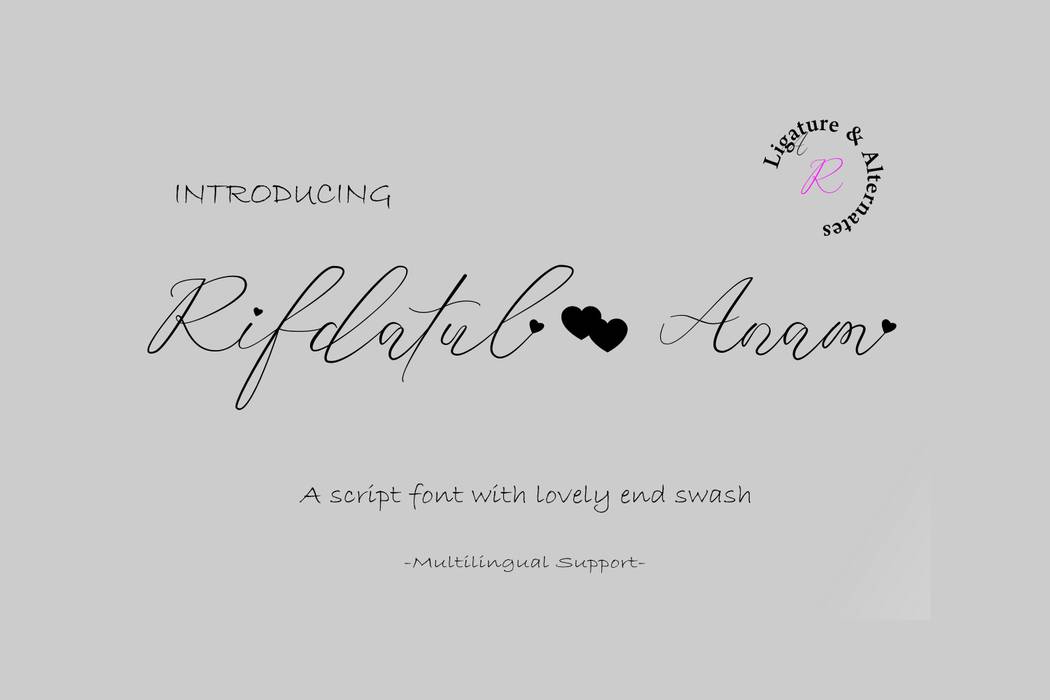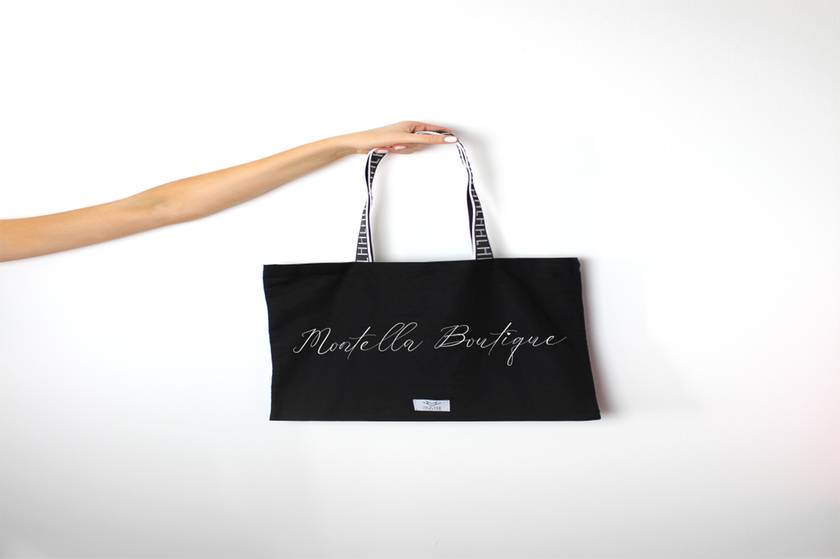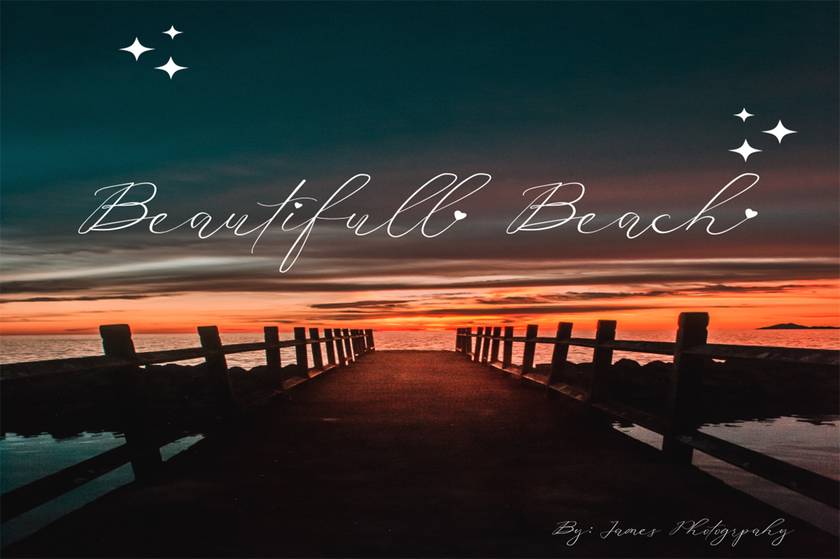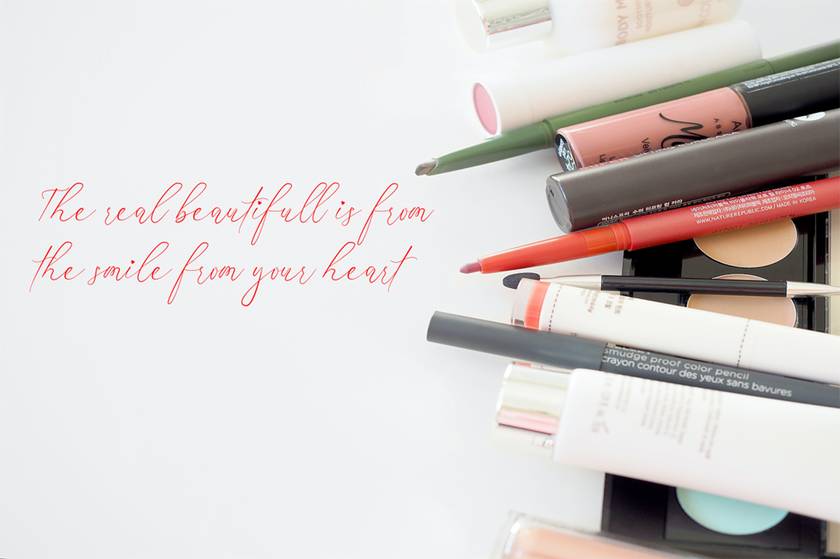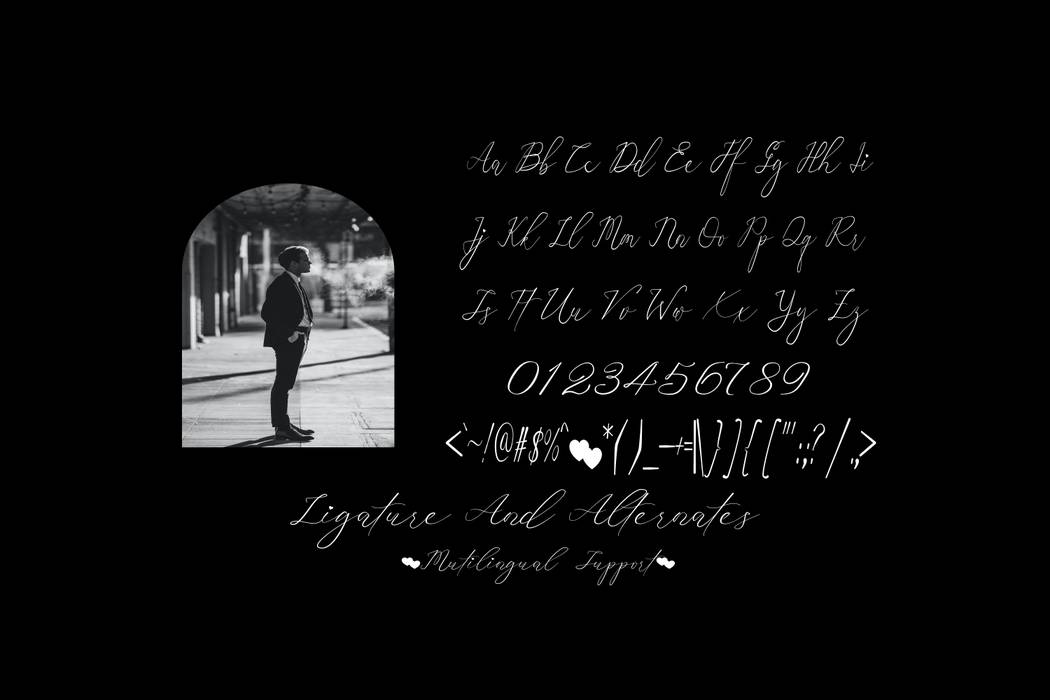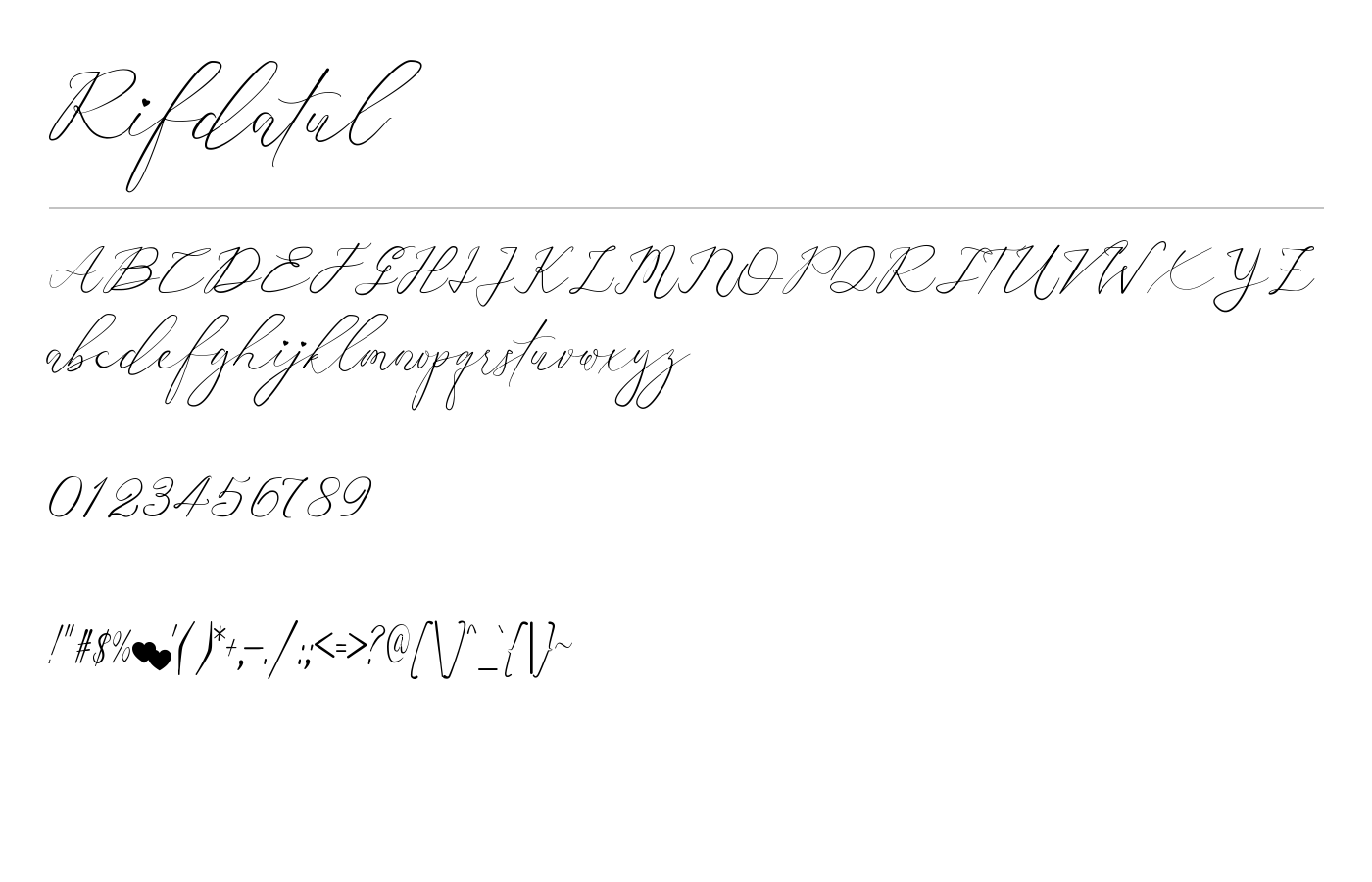
Rifdatul Anam is a delicate, elegant script font characterized by its thin, flowing strokes and graceful letterforms that mimic natural handwriting. Its light weight and airy spacing give it a refined, sophisticated feel, making it ideal for wedding invitations, luxury branding, and feminine design projects where a personal, stylish touch is desired. This font works best in headlines and decorative text, adding a charming, romantic flair to any creative layout.
Rifdatul Anam Font
About Rifdatul Anam Font
| Font family | Rifdatul Anam Font |
| Release date | 2019-07-22 |
| Designer | Dedi Irawan |